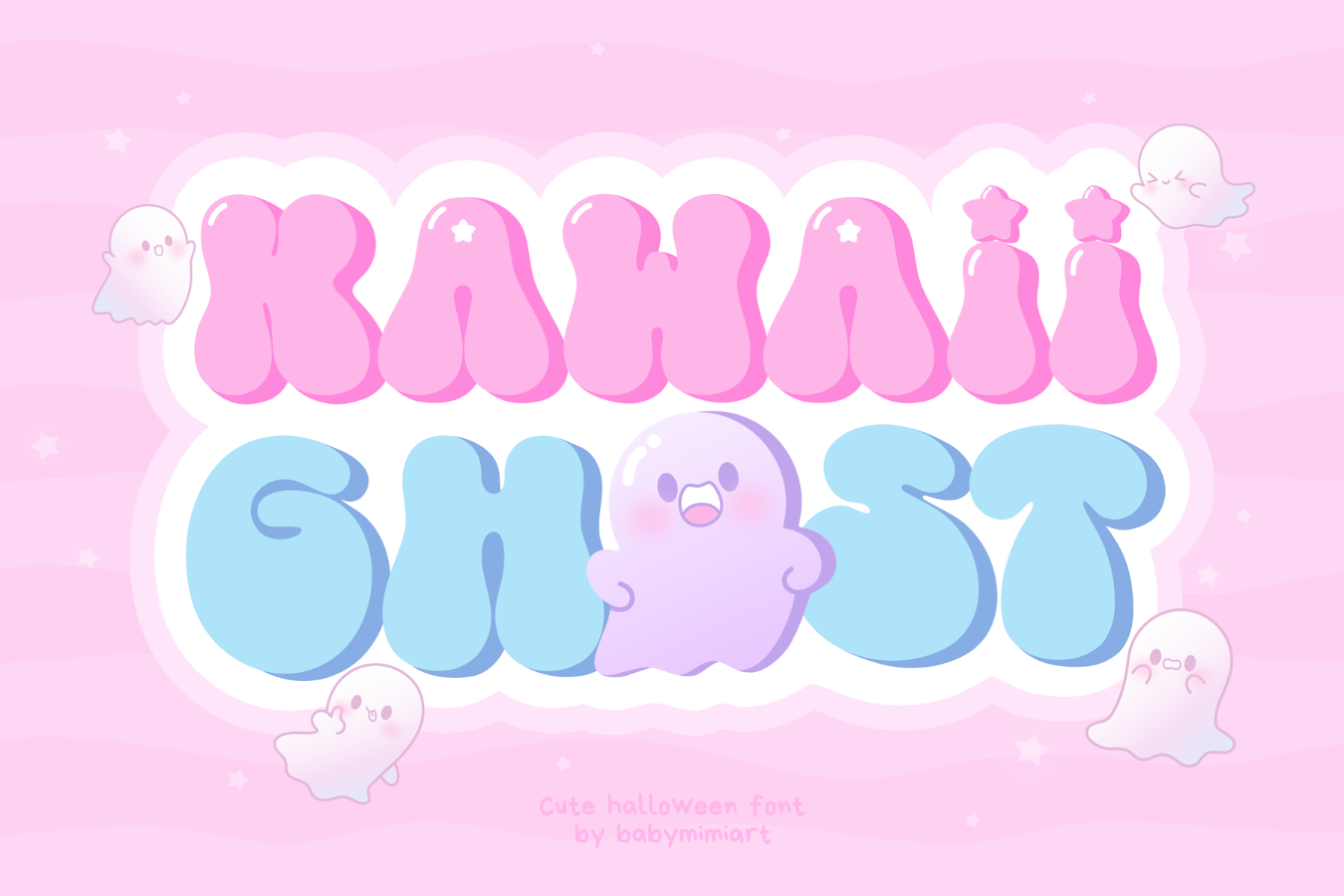
Kawaii Ghost Font
Kawaii Ghost is adorable full of cuteness and groovy retro vibes, spiced up with cool star decorations and cute little ghosts. Think of the funky ’60s and ’70s, mixed with a playful touch. It’s your go-to for adding that fun vibe to your projects. Whether you’re working on cute stuff like children’s books, logos, or just some friendly greeting cards, Kawaii Ghost Font has got that charm you’re after.